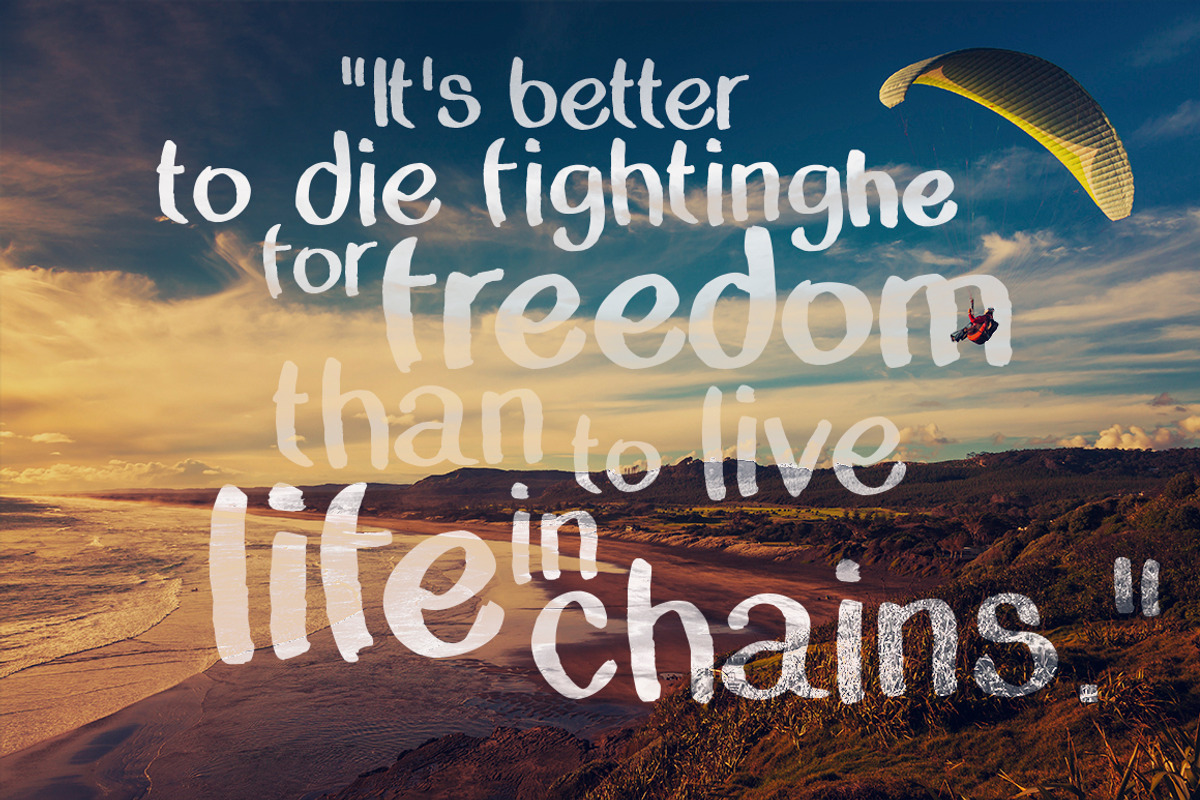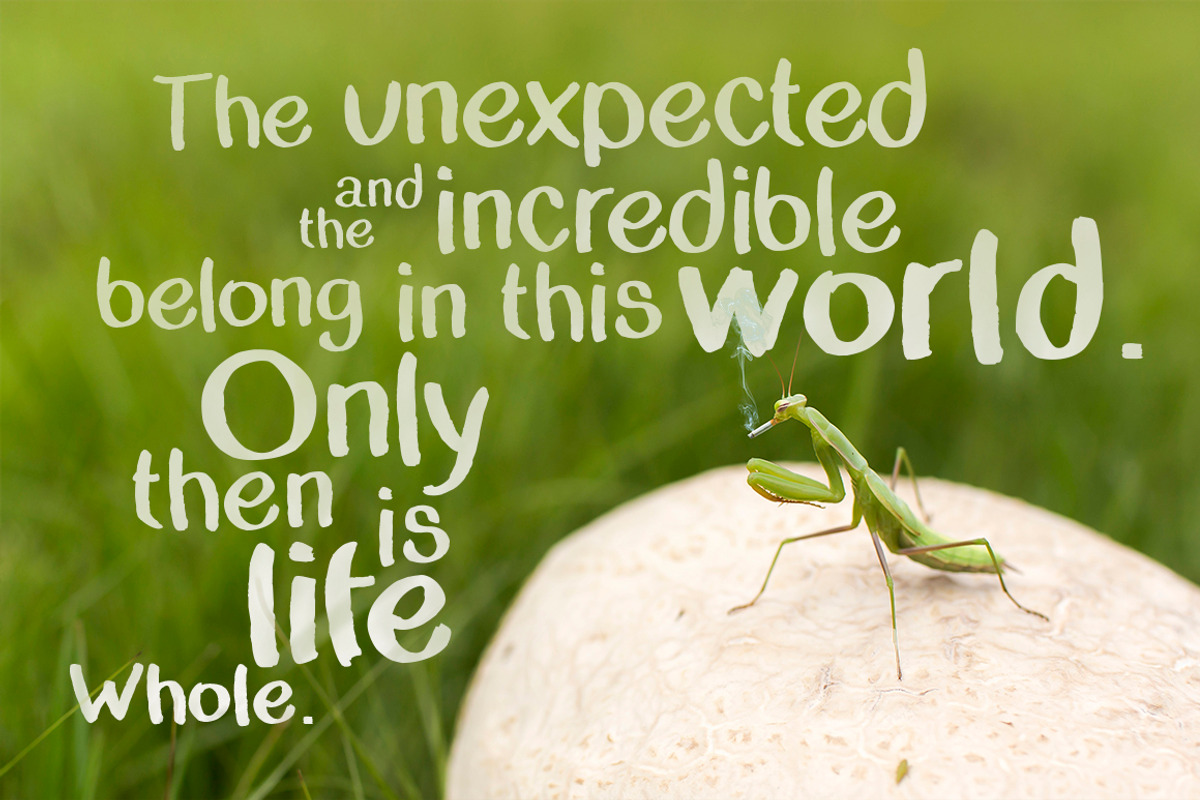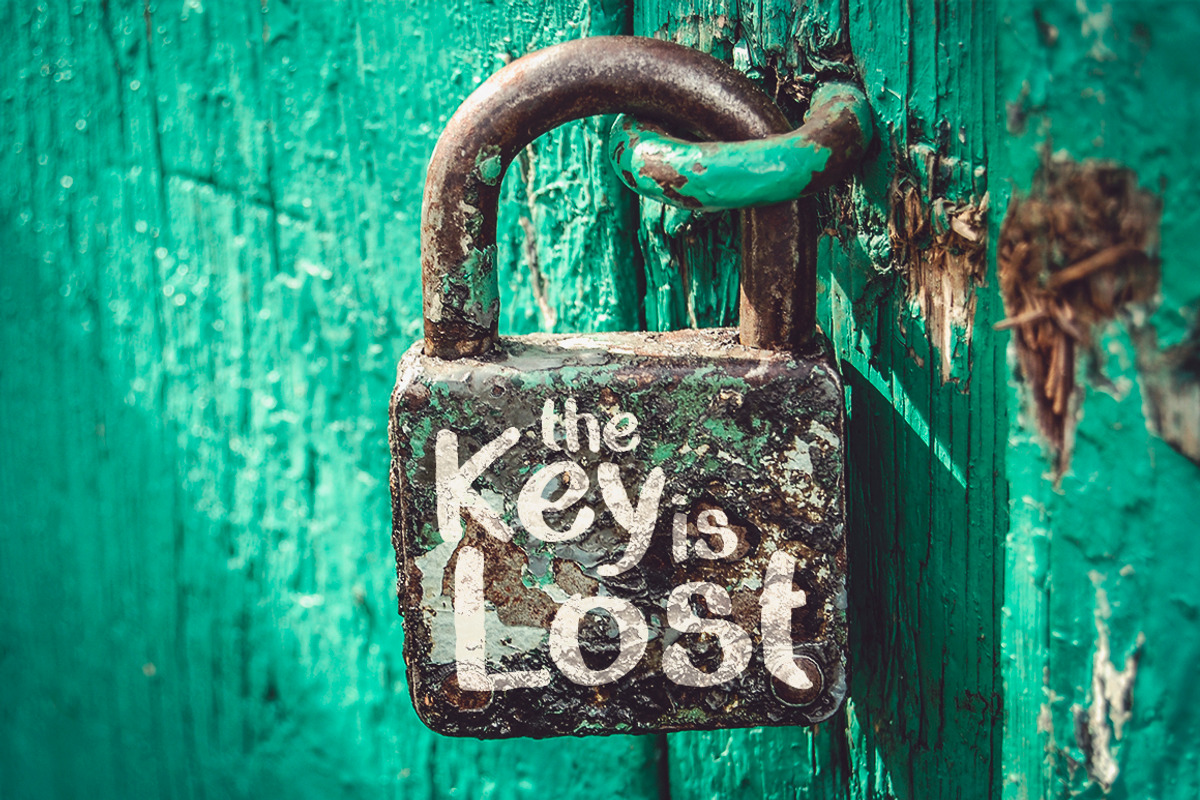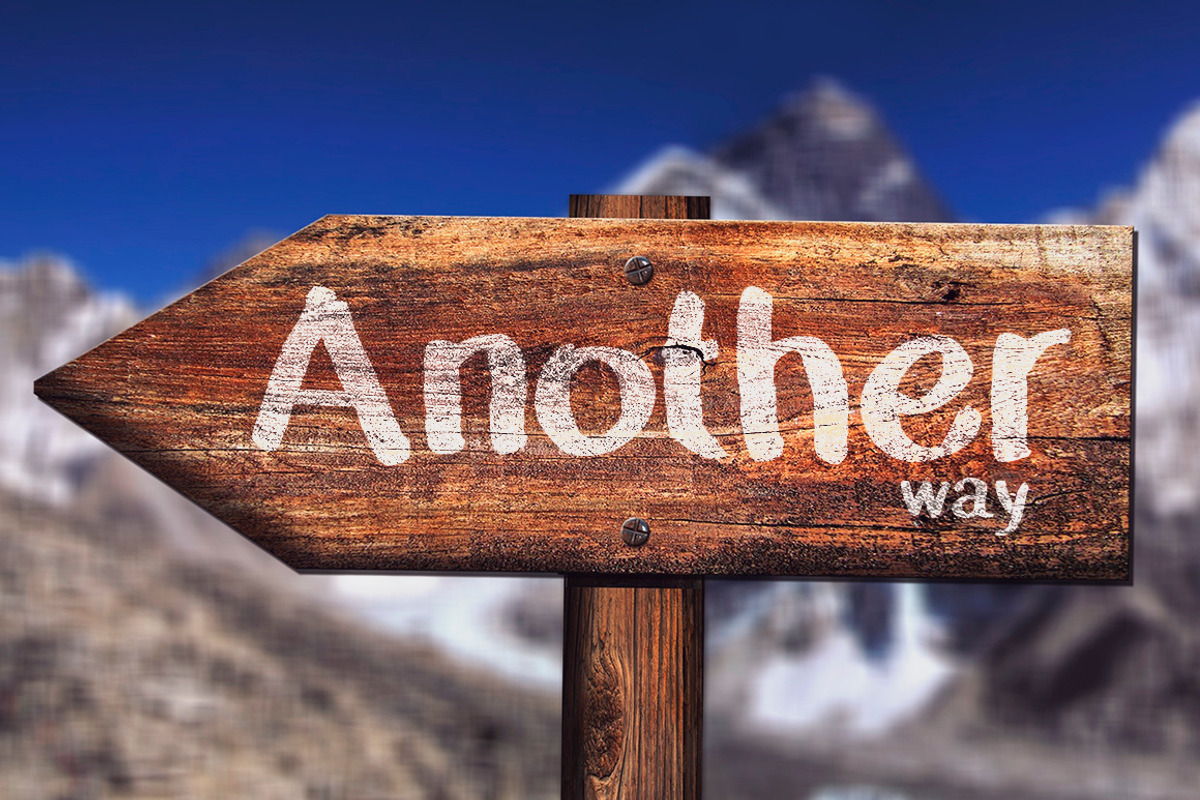
The Grimm Brush Typeface
The Grimm Brush Typeface by MoonfishStudio is a font selected for branding, posters, packaging, typography.
Why The Grimm Brush Typeface is worth a look
The Grimm Brush Typeface by MoonfishStudio fits naturally into Branding, posters, packaging, typography.